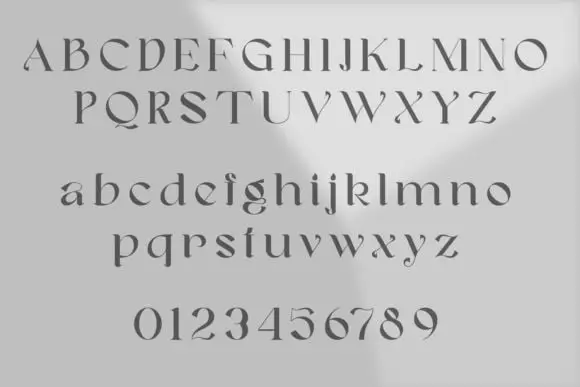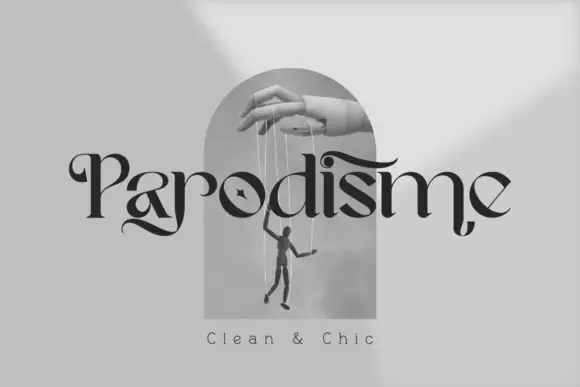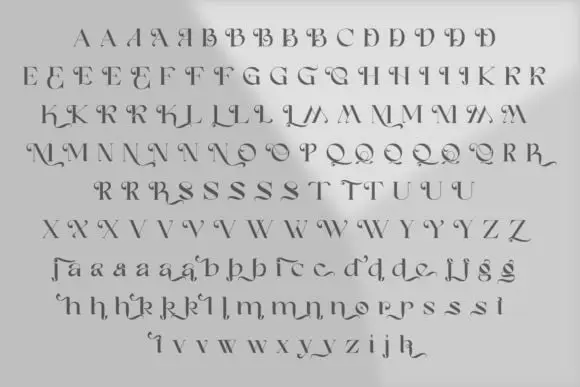
Parodisme Font
The Parodisme Font is a unique typeface designed to bring a playful and artistic flair to your projects. With its distinct character and creative style, this font is perfect for a variety of applications, from branding and logos to web design and print materials.
• Stylish and artistic design
Utilize the Parodisme Font in your branding, social media graphics, or any creative project that requires an eye-catching typeface. Its playful nature makes it ideal for invitations, posters, and other promotional materials.